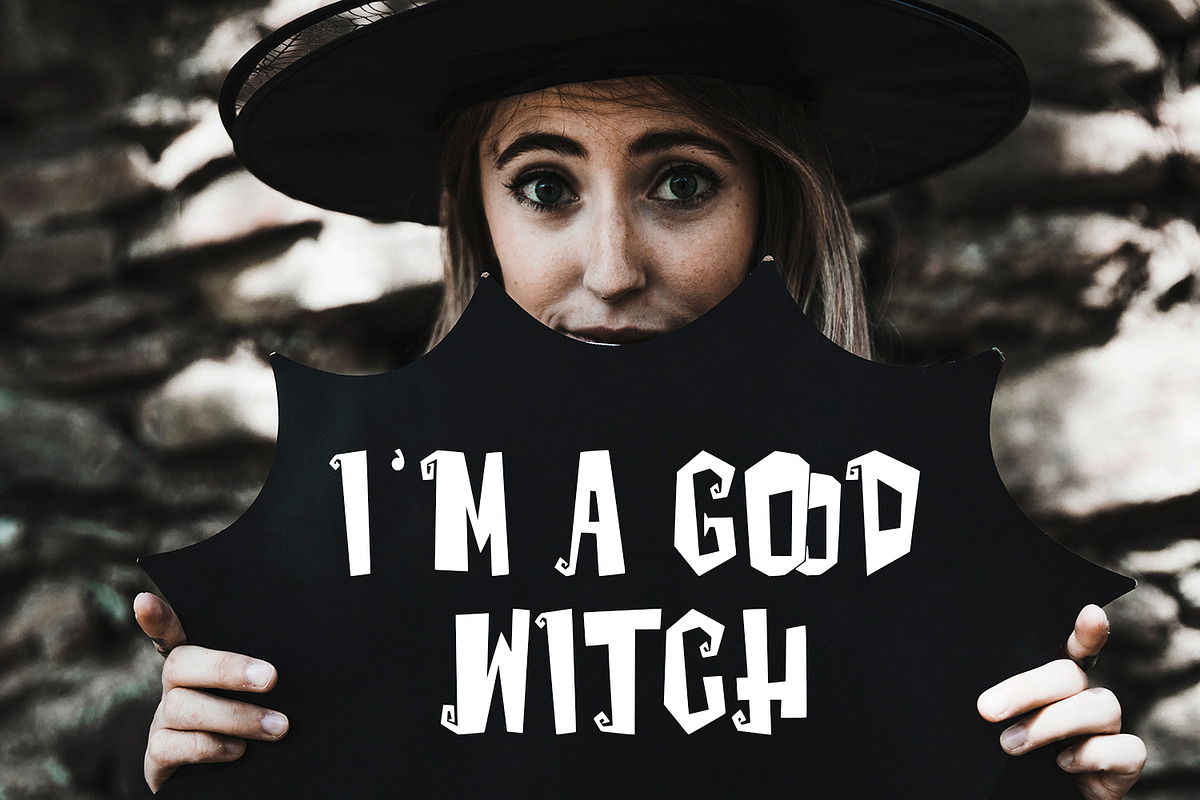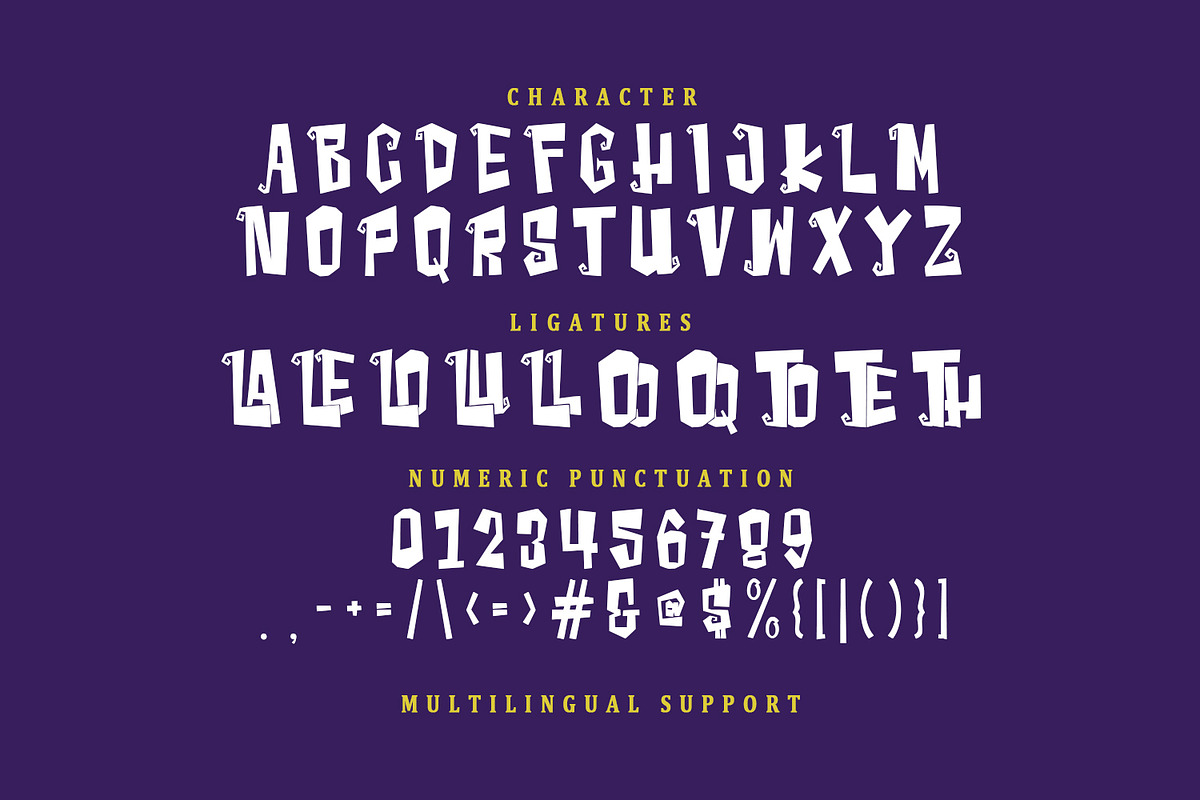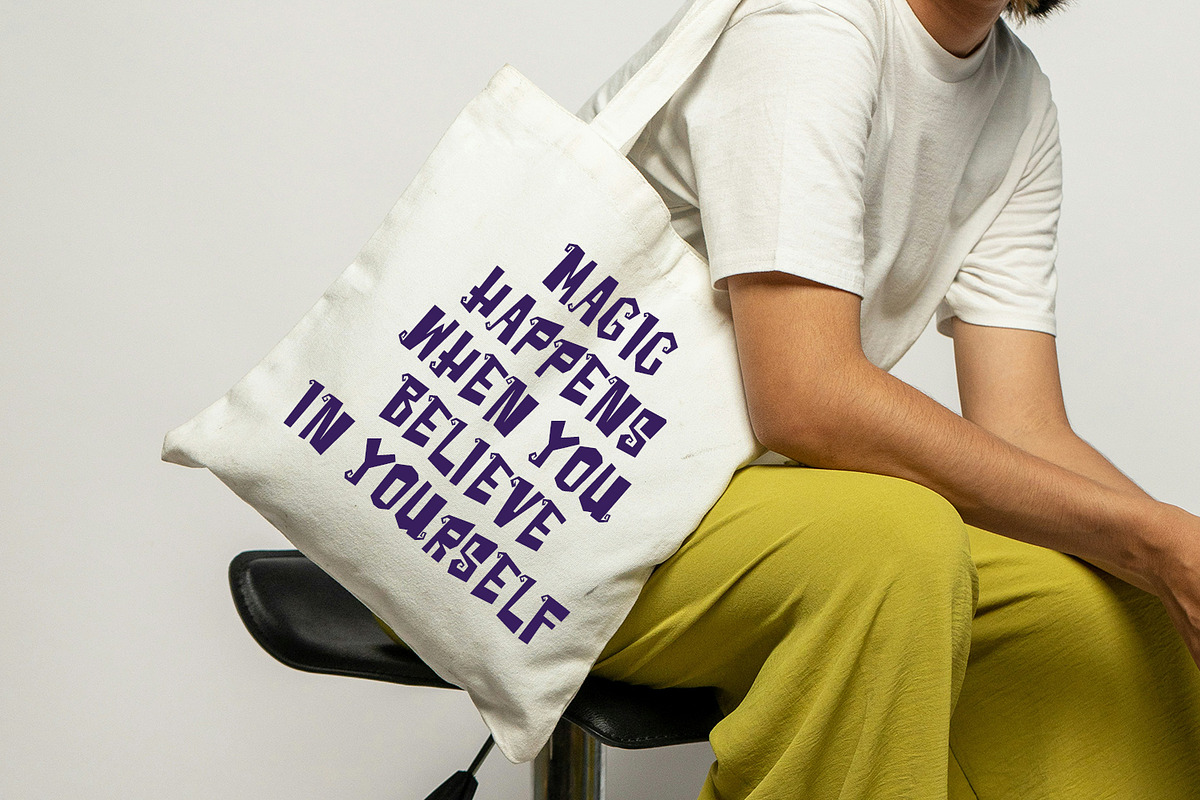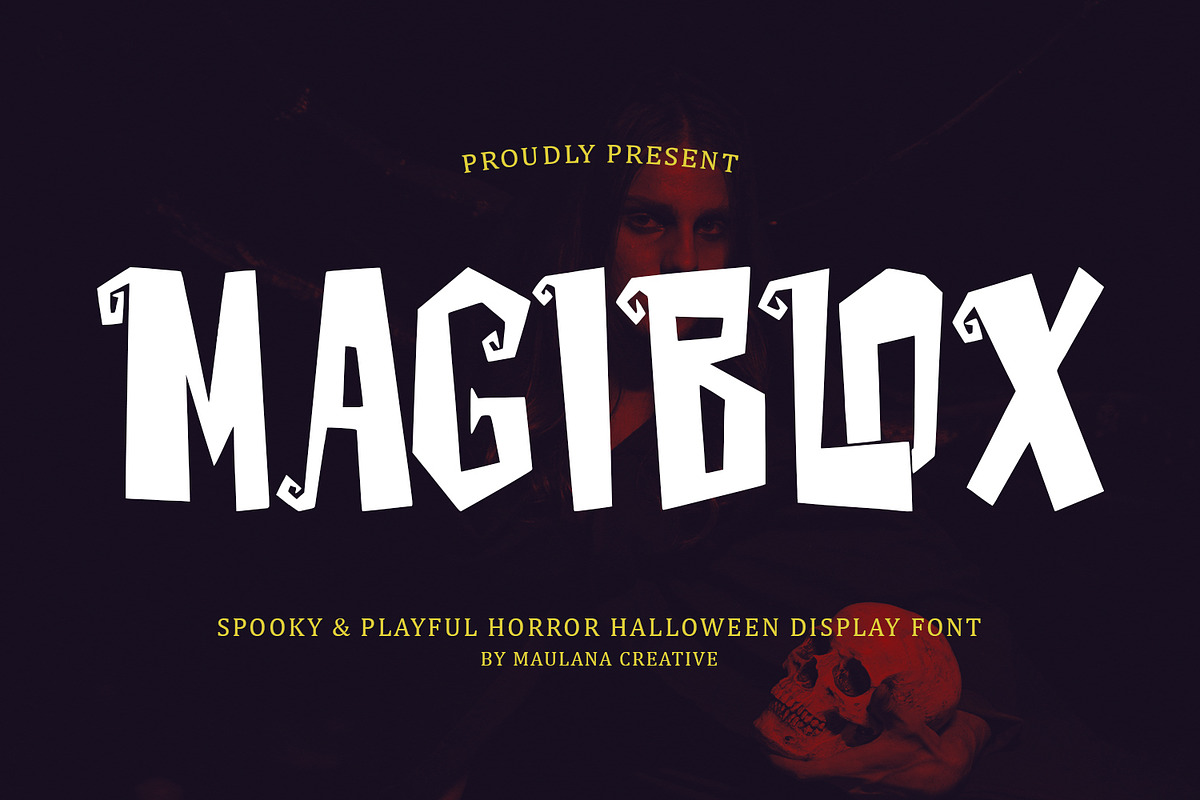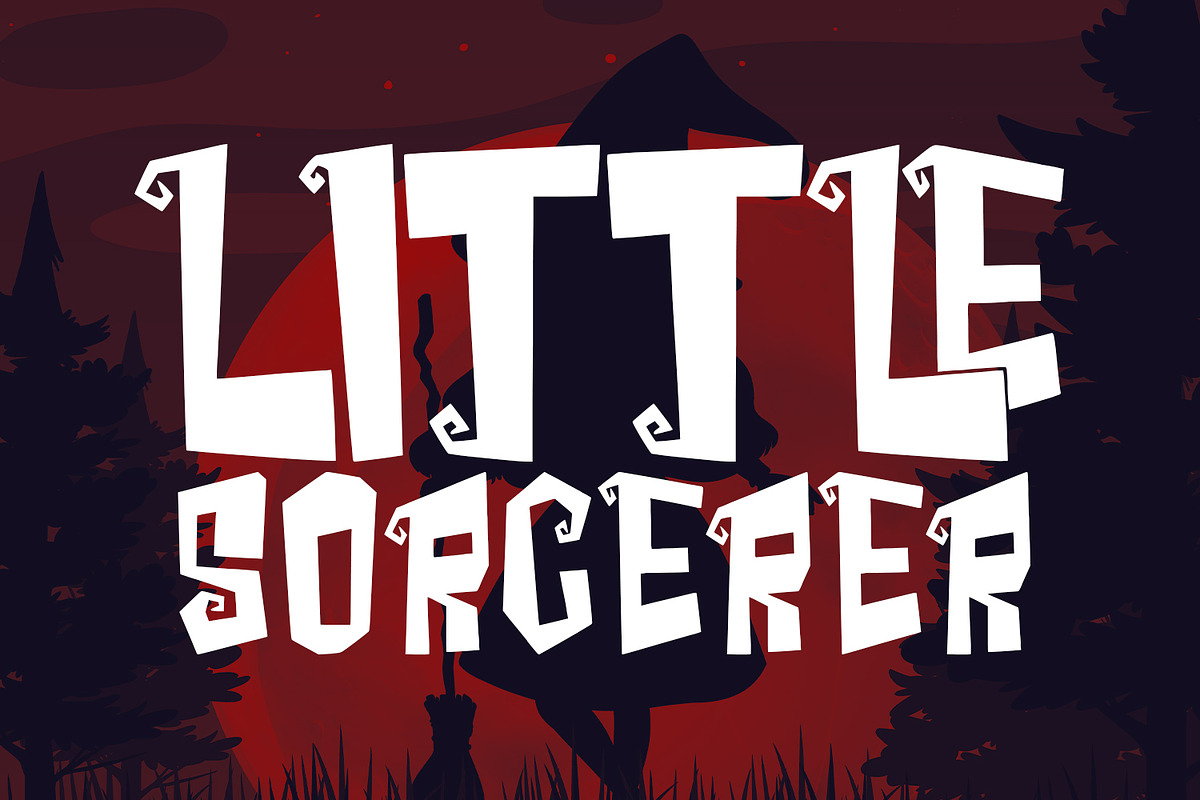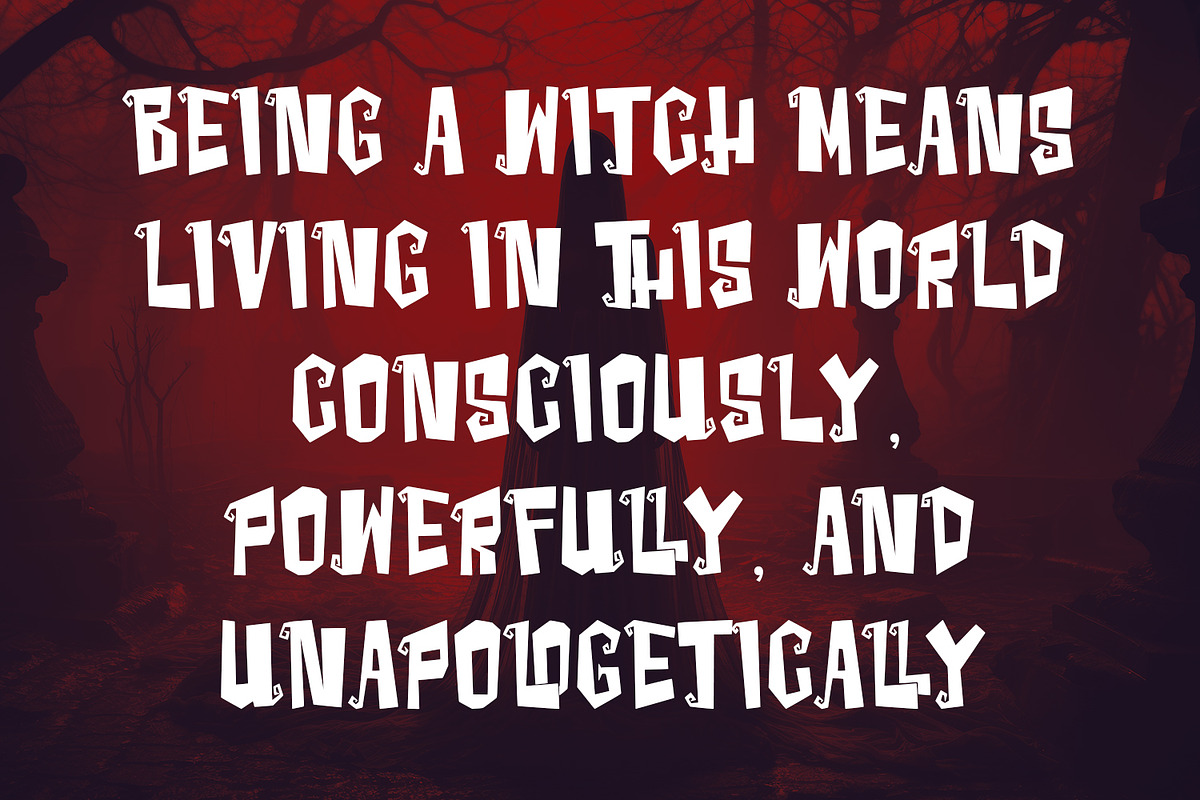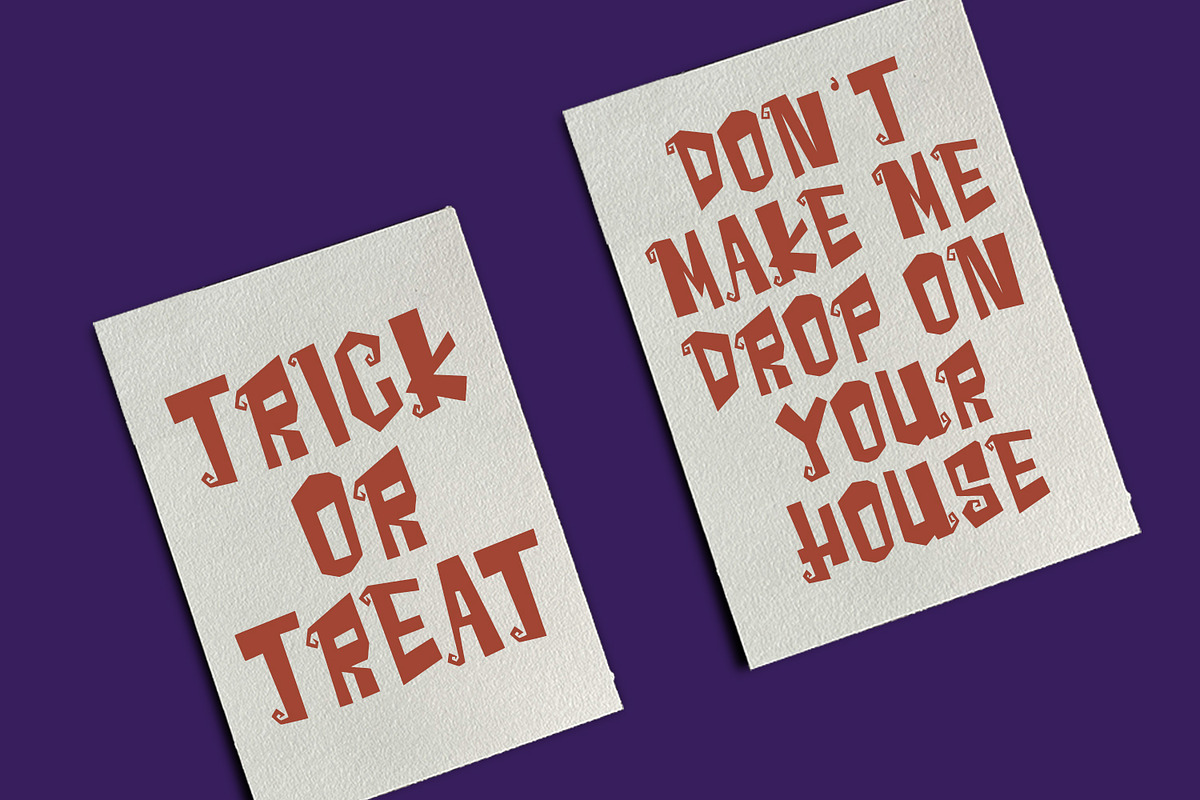
Magiblox Spooky Playful Horror Font
Magiblox is a handcrafted display font designed to bring a perfect balance of horror, mystery, and playful quirkiness to your creative projects. Inspired by classic spooky cartoons and modern horror aesthetics, this font features unique "curly" serifs and blocky, irregular letterforms that give your text a hand-drawn, eccentric vibe.
Whether you are working on a Halloween party invitation, a spooky book cover, horror-themed branding, or quirky social media graphics, Magiblox provides the high-impact look you need. Its bold presence ensures your titles stand out, while its whimsical details add a touch of "dark magic" to every word.
- Full Uppercase Character Set
- Ligatures Style
- Halloween Events & Posters
- Apparel & T-Shirt Design
- YouTube Thumbnails (Horror/Gaming)
- Product Packaging
- Movie Titles & Book Covers